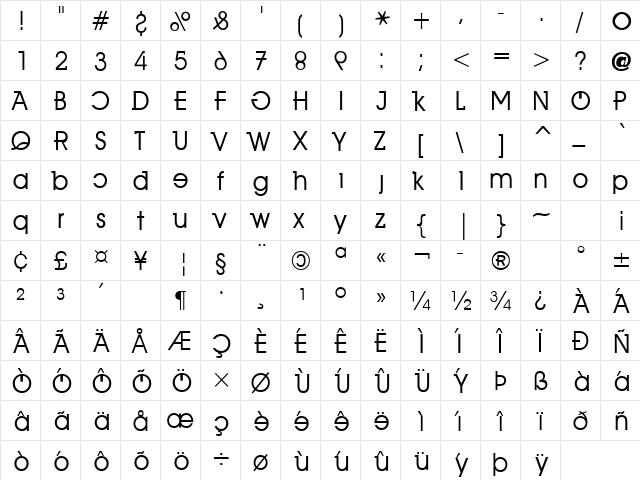
Disxelia Fartzake
Design Context for Disxelia Typeface
Disxelia takes a measured approach to typography — its balanced proportions and neutral character make it a reliable workhorse for both digital and print work.